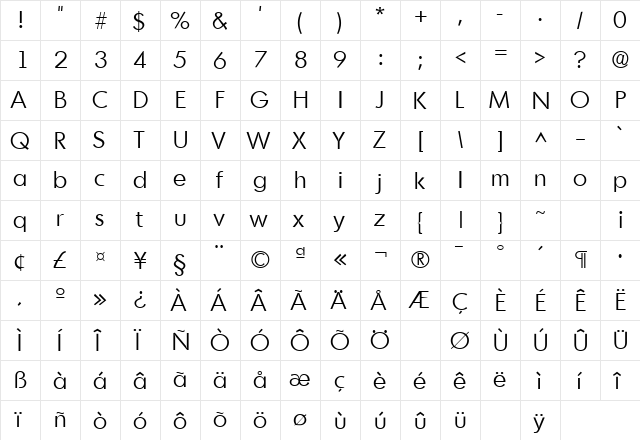
MontrealLH Regular
Design Context for MontrealLH Typeface
MontrealLH is a composed and adaptable typeface that performs quietly and consistently across a wide range of design contexts.